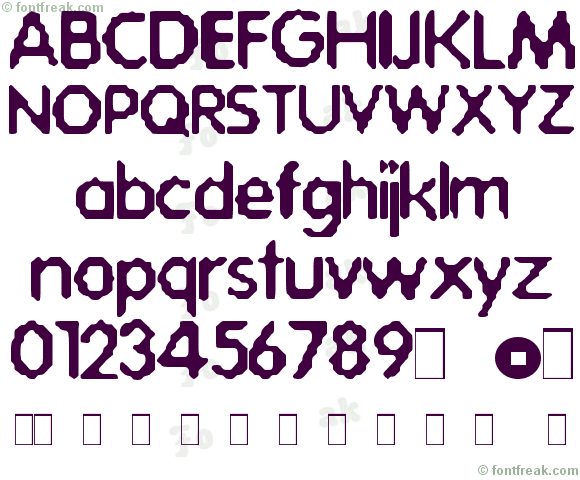
Acid Bath
About Acid Bath
Acid Bath by Catsu!t is a striking display font that captures attention with its bold, unconventional design. This decorative font features unique letterforms that resemble dripping liquid, evoking a sense of edginess and creativity. The stroke weight is consistent, yet the letters display intriguing irregularities that enhance their visual appeal. With a moderate contrast between thick and thin strokes, Acid Bath offers a dynamic look that is both playful and rebellious. The spacing between characters is slightly tight, which adds to its cohesive appearance while making it perfect for impactful headlines.
This font excels in various creative applications, making it a versatile choice for designers. It’s particularly suited for music event posters, where its bold character can convey energy and excitement. Acid Bath also works well for edgy fashion brands, providing a youthful, trendy vibe that resonates with modern audiences. Additionally, its unique aesthetic makes it a fantastic choice for album covers or merchandise for alternative bands, where standing out is essential. Small business owners looking to create an unforgettable logo or branding materials will find Acid Bath to be an effective choice that communicates individuality and flair.